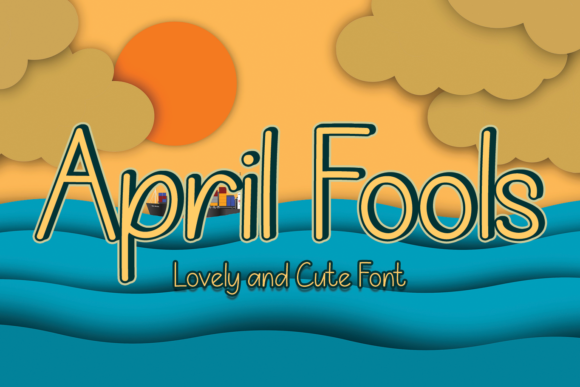
Dive into the world of April Fools Font, a playful and whimsical display font that will add a touch of cheer to your designs. Unleash your creativity and let this font take you on an adventure of laughter and joy.
Picture this: you're designing an invitation envelope for a special occasion. You want it to stand out, to capture the attention of the recipient and leave them eager to discover what's inside. With April Fools Font, you can do just that. Its quirky and charming characters will dance across the envelope, creating an atmosphere of excitement and anticipation.
Explore the boundless possibilities of April Fools Font. Whether it's for designing playful greeting cards, whimsical posters, or eye-catching social media posts, this font will effortlessly elevate your creations. Its versatility knows no bounds, allowing you to express your unique style and personality in every project you undertake.
Using April Fools Font is like embarking on a journey of laughter and smiles. It's a font that spreads joy wherever it goes, leaving a trail of happiness in its wake. So, why settle for ordinary when you can have extraordinary? Embrace the spirit of April Fools Font and let your designs radiate with mirth and merriment.